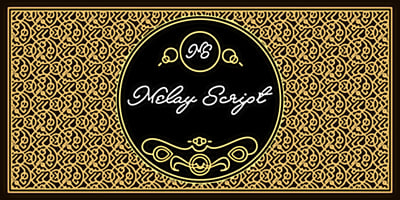
Melay Script
Melay Script font
Melay Script Font Family was designed by Måns Grebäck, Noah Kinard and published by Mans Greback. Melay Script contains 1 styles and family package options. Melay Script is a monolined calligraphic typeface, with large and beautiful upper-case letters and a decorative style. It has elegance and confidence.